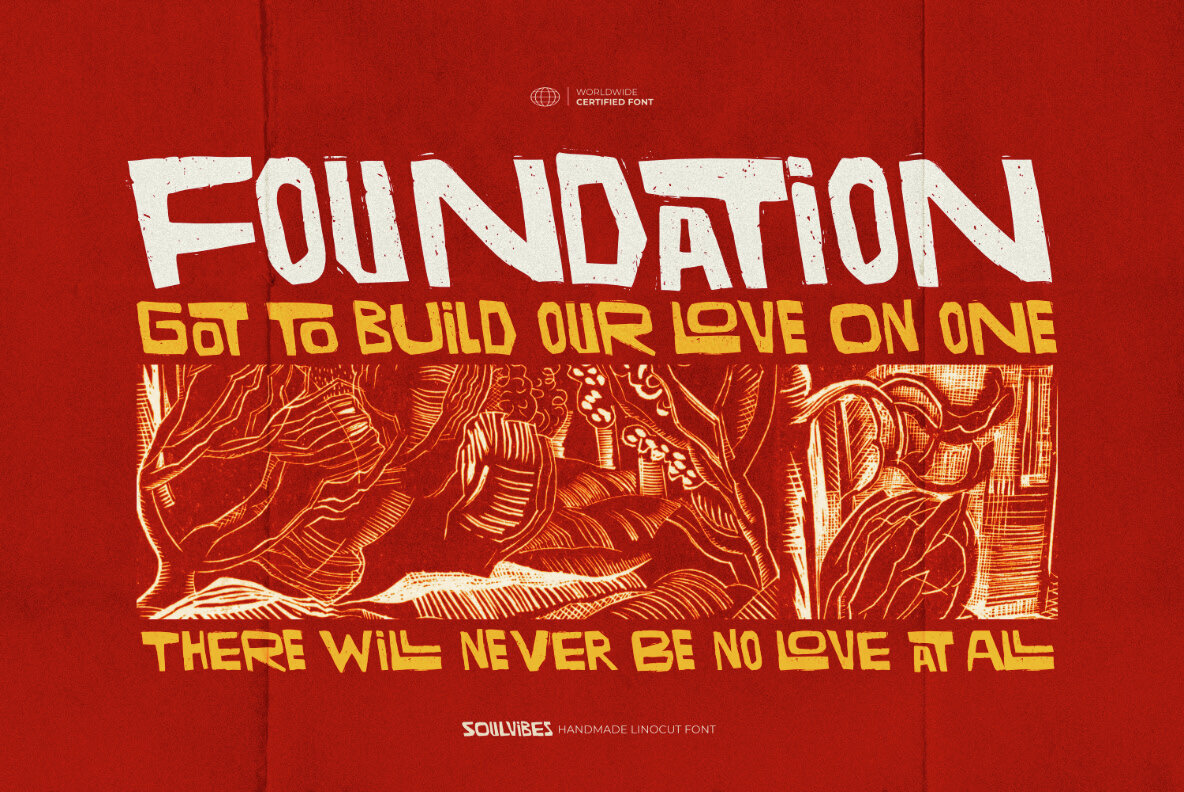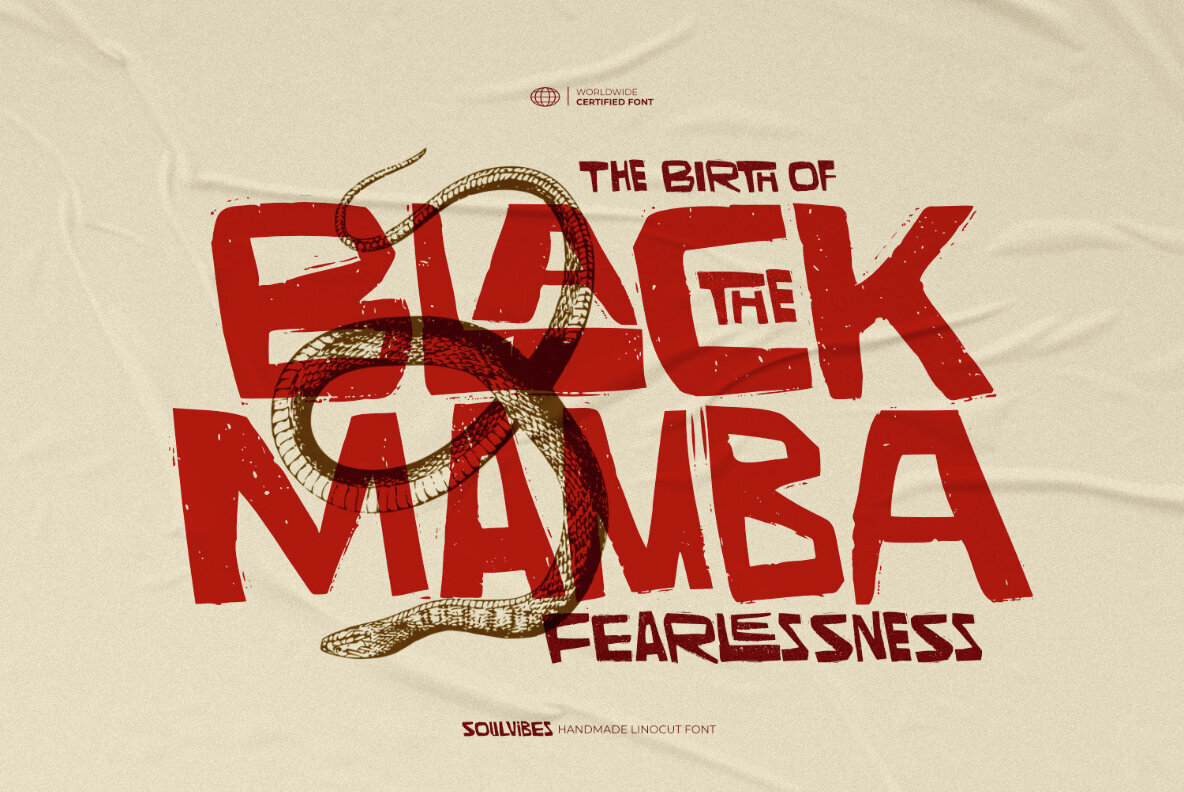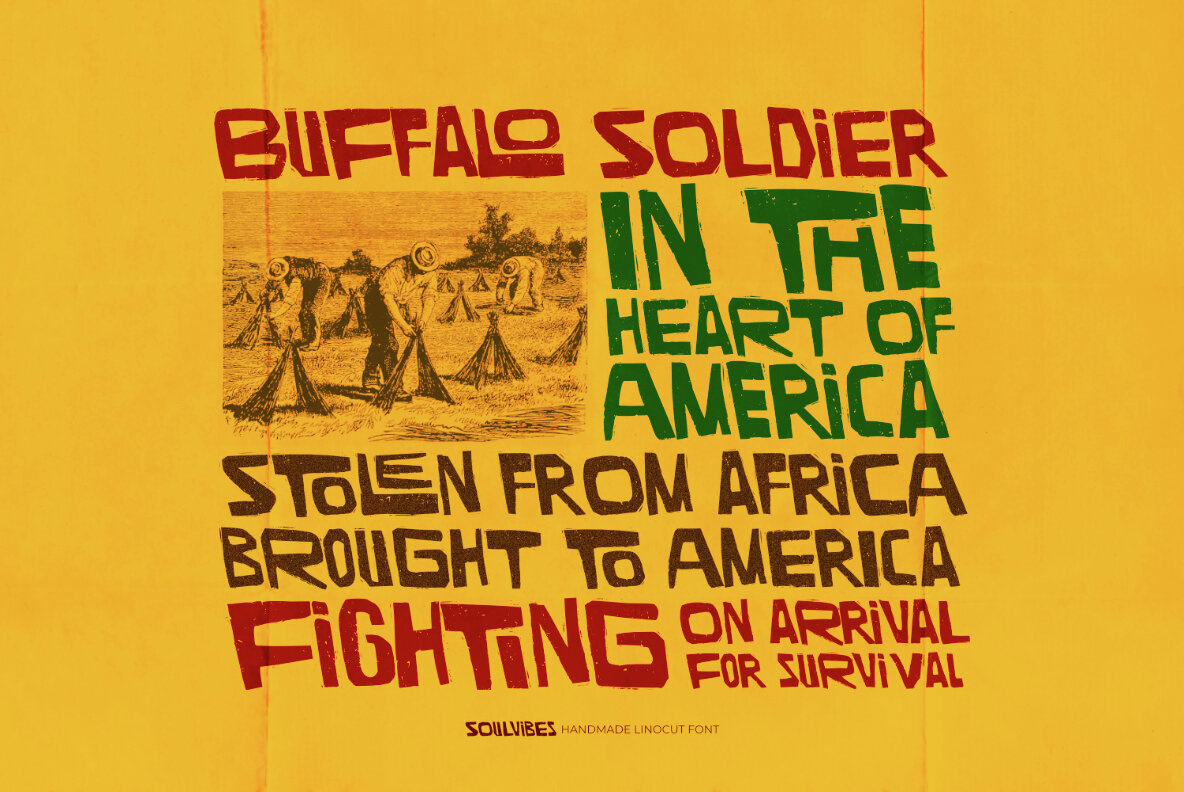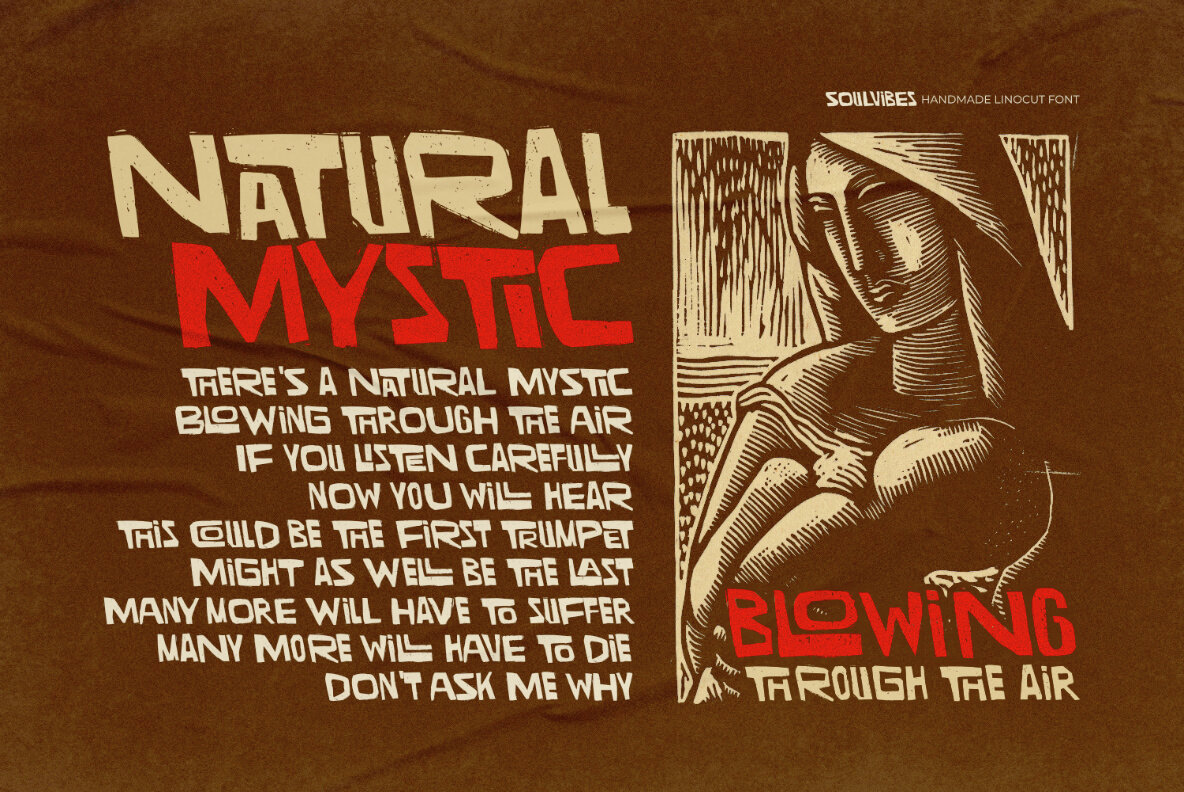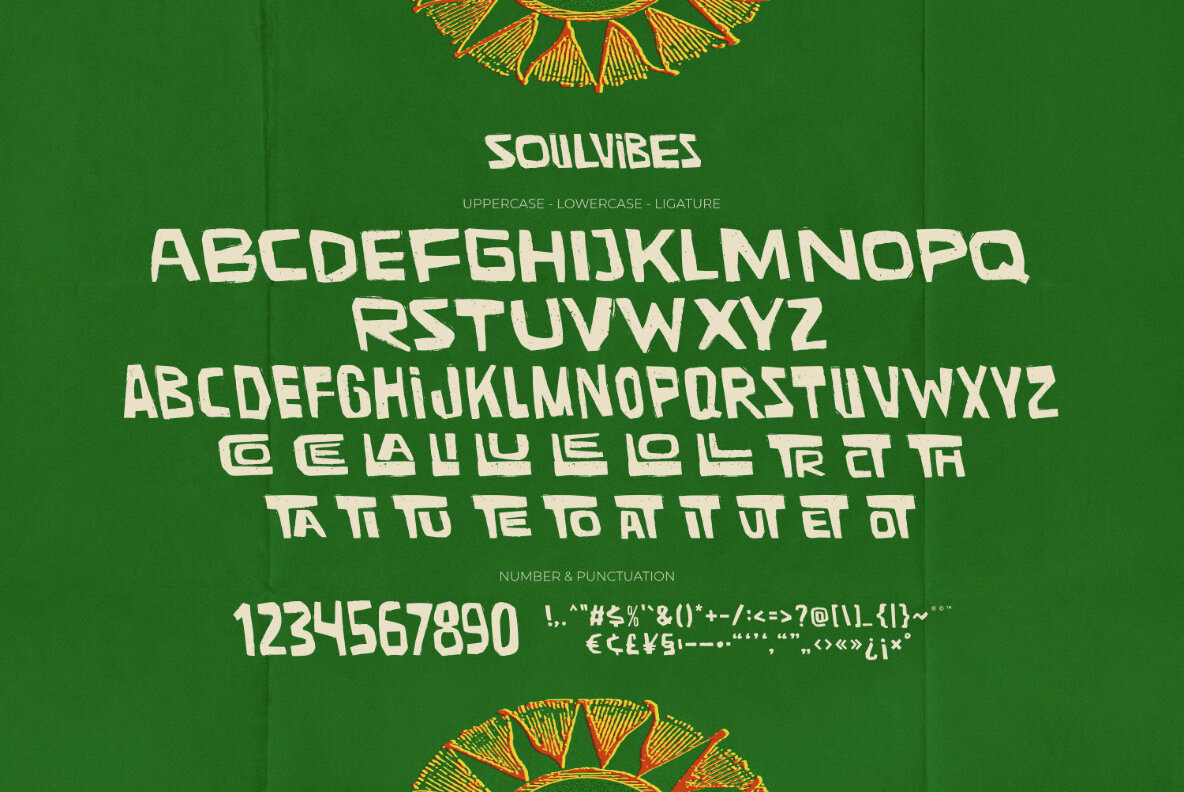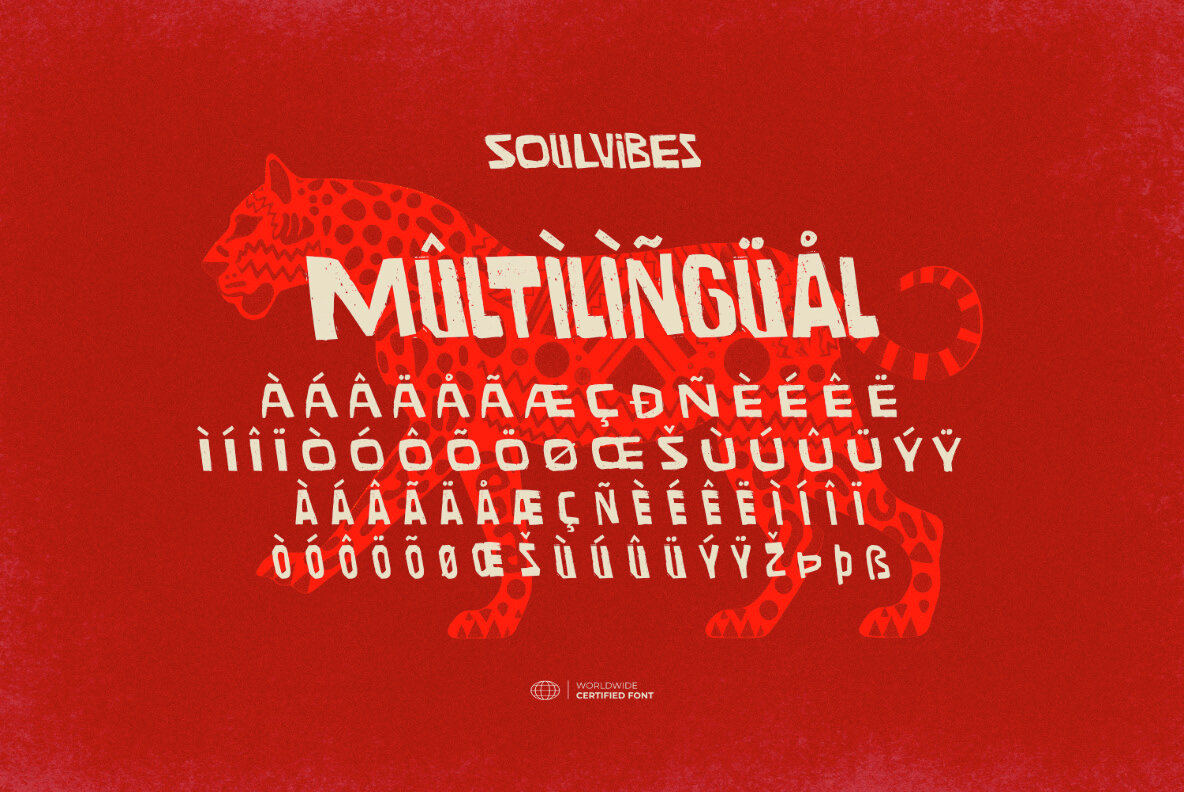
Soulvibes Font
Soulvibes Regular
Soulvibes is here to give your designs that raw, artistic edge! Inspired by traditional woodcut and letterpress styles, it’s packed with a cool, handmade vibe that feels authentic and unique. Drawing influence from African tribal art and craftsmanship, this font brings a rich cultural feel to your projects. Perfect for artistic posters, bold branding, or creative artwork. Soulvibes adds that distinct tribal touch that makes your designs pop. Whether you’re going for a bold, creative look or something that feels truly handmade, this font delivers a one-of-a-kind, crafted style that stands out in any crowd. This font is very suitable for making a artistic poster event, book cover, magazine layout, packaging, food & beverages, quotes, or simply as a stylish text overlay to any background image. What's Included?